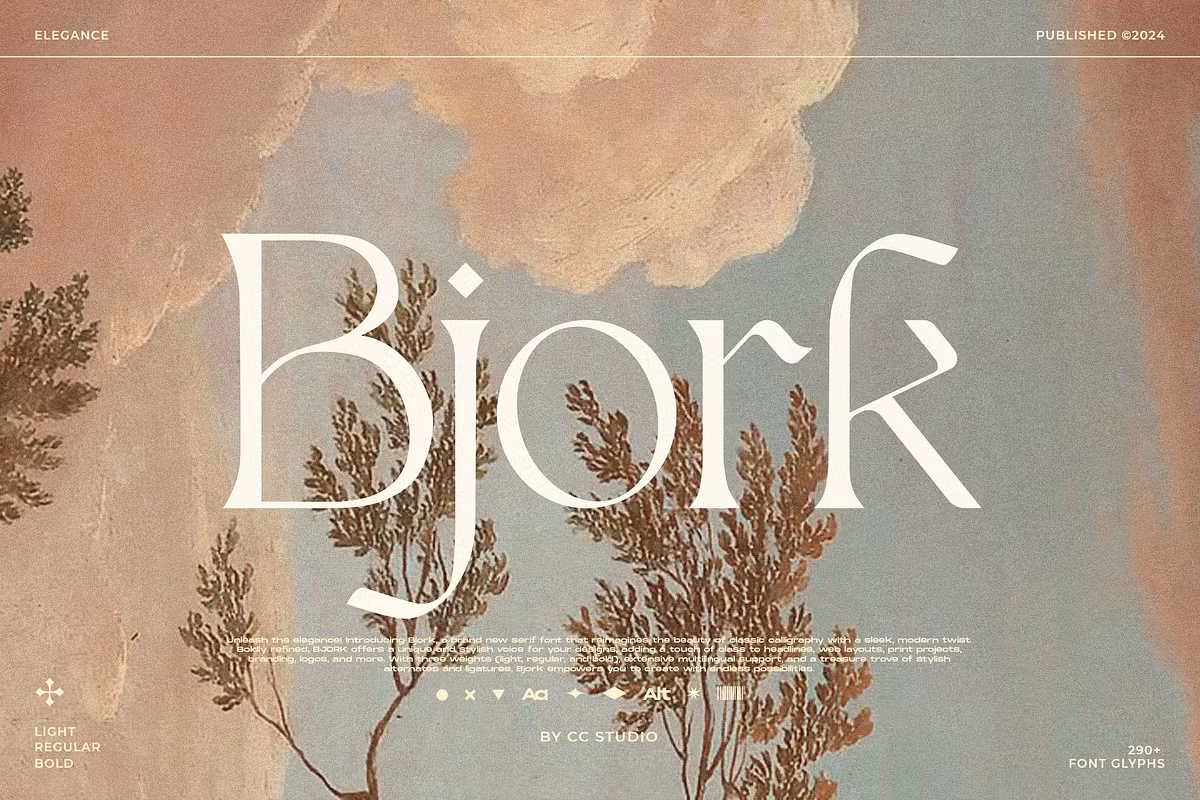
Add timeless sophistication and elegance to your designs with Bjork Serif Font Free Download. This refined serif typeface features classic proportions with modern undertones, making it perfect for logos, branding, editorial design, packaging, and more.
Bjork combines sharp, elegant serifs with balanced letterforms, offering a versatile and stylish look that works well in both large headlines and smaller text. It includes uppercase and lowercase letters, numerals, punctuation, and multilingual support, giving you flexibility to experiment with various design layouts.